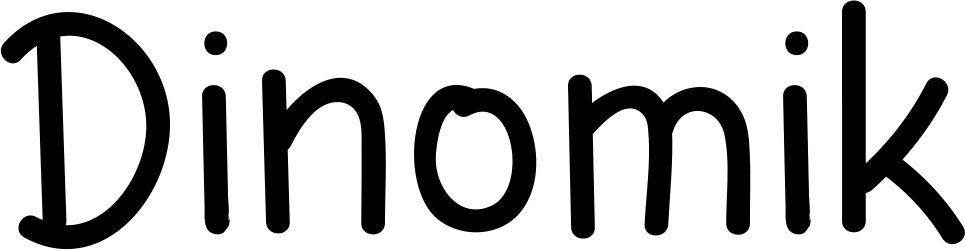
Dinomik Font
If you are looking for a way to create a playful and happy feeling in your content, we suggest you try a cartoon font. From that category, we can recommend Dinomik, which is perfect for a variety of areas like children’s storybooks, cartoons, birthday cards, T-shirts, and games.
This font comes with a wonderful collection of characters containing both the uppercase and lowercase of the alphabet, the numbers, and the punctuation marks.
Introducing Dinomik, a fun comic font that will make your day more cheerful. This font is perfect for you who find a cute hand drawn font.